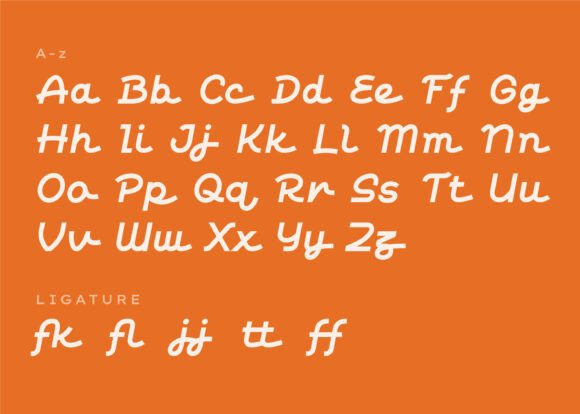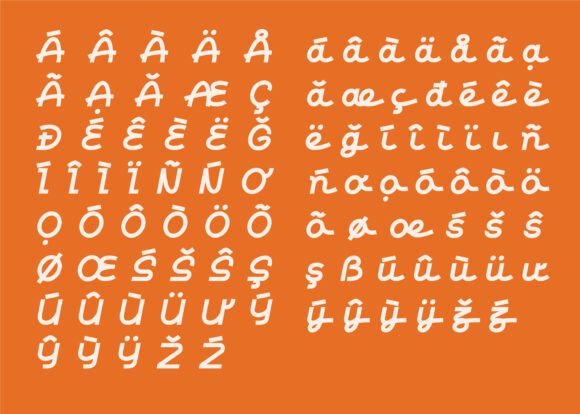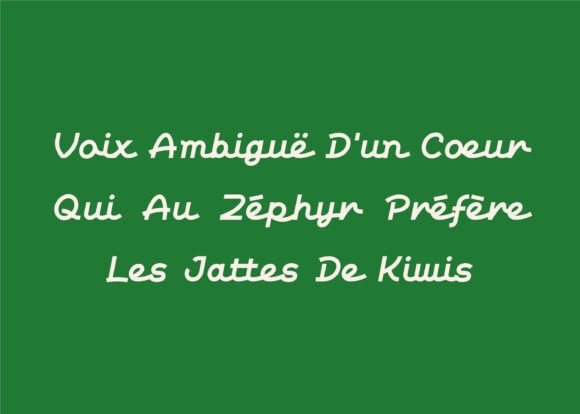
Introduction to Glantiq Font
As a designer, you’ve probably been there – staring at a blank canvas, trying to bring your creative vision to life. The perfect font can make all the difference, elevating your design from ordinary to extraordinary. That’s exactly what Glantiq Font does, with its smooth, flowing strokes and warm, rounded aesthetic that captures the charm of effortless handwriting.
Glantiq Font is a game-changer for designers looking for a high-quality, versatile font that’s perfect for a wide range of creative projects. Whether you’re working on a design resource with a transparent background or creating a logo for a new brand, Glantiq Font is sure to impress. With its free download option, you can experiment with this fantastic font on your next project without breaking the bank.
So, what makes Glantiq Font so valuable for designers? Its unique blend of style and readability makes it an ideal choice for any creative project, from digital interfaces to print materials. In this article, we’ll dive deeper into the world of Glantiq Font, exploring its features and benefits that make it a must-have for any designer’s toolkit.
Key Features of Glantiq Font
- High-quality design with a transparent background, ideal for creative projects.
- Unique characteristics include a modern and sleek aesthetic, making it perfect for branding and logo design.
- Glantiq Font is designed to be highly legible, even at small font sizes, making it suitable for use in a variety of creative projects.
Honest Review: Glantiq Font
I recently had the opportunity to work with the Glantiq Font in a creative project, and I must say it’s been a game-changer. As a designer, I’m always on the lookout for high-quality design resources that can elevate my work, and the Glantiq Font certainly delivers.
- ✨ The font is incredibly versatile, making it perfect for a wide range of creative projects, from branding to editorial design.
That being said, there are a few limitations to keep in mind:
- ⚠️ The font may not be as customizable as some other options, which can be a limitation for more complex design projects.
Overall, I’m thoroughly impressed with the Glantiq Font. Its high quality and versatility make it a valuable addition to any designer’s toolkit, and the free download option makes it accessible to designers of all levels.
Tips for Getting the Most Out of Glantiq Font
Use Glantiq Font to add a touch of elegance and sophistication to your high-quality designs. Experiment with different font styles and sizes to create a unique and creative look. Use the font on a transparent background to add depth and dimension to your designs.
Glantiq Font is a versatile design resource that can be used in a variety of creative projects, including business cards, brochures, and presentations. Use the font to create a professional and polished look that will make your design stand out.